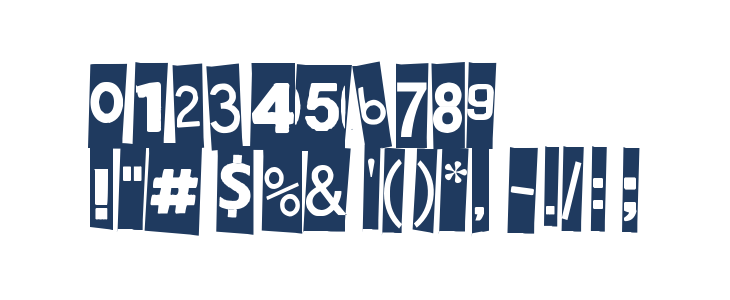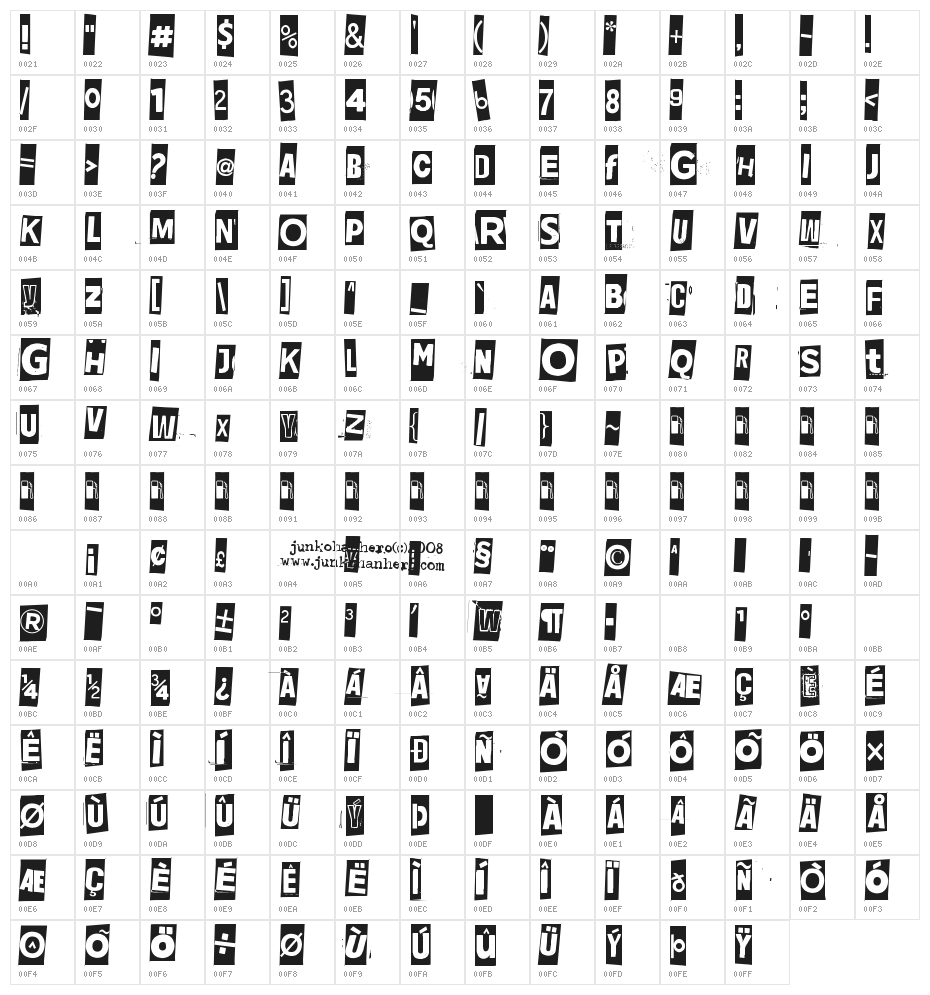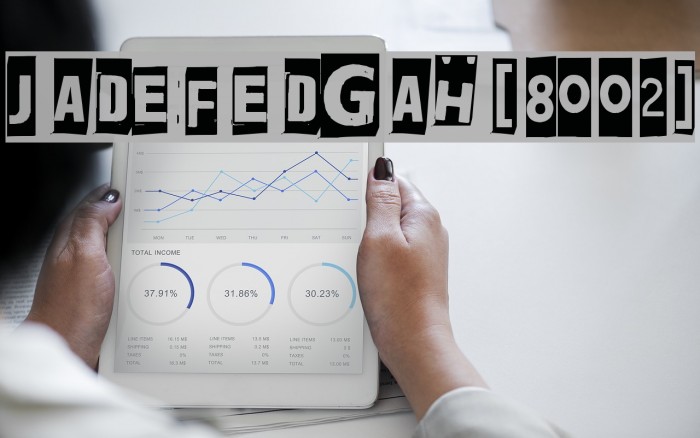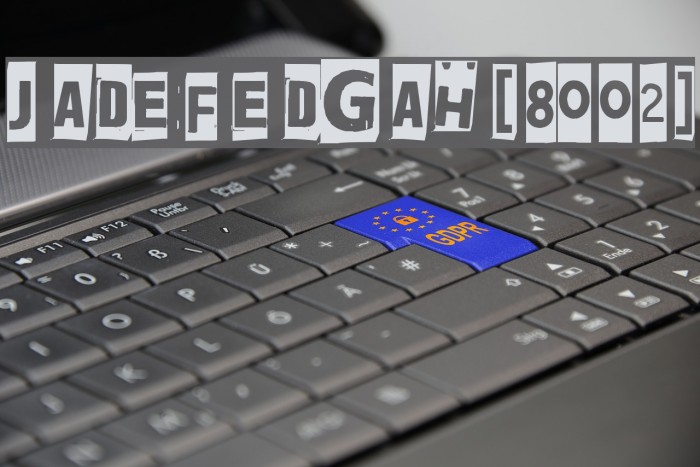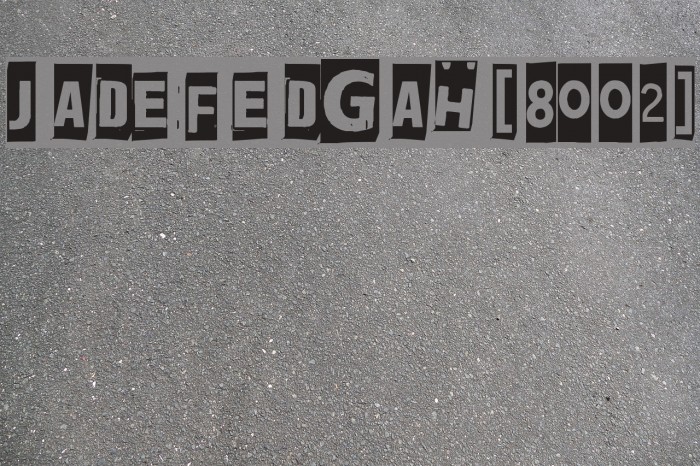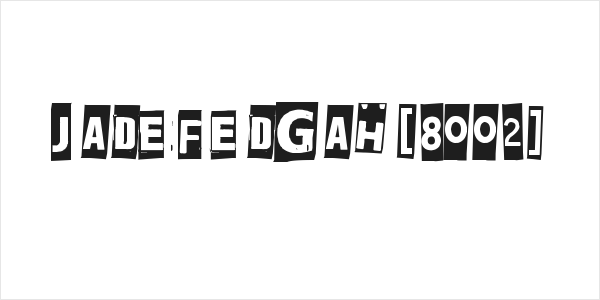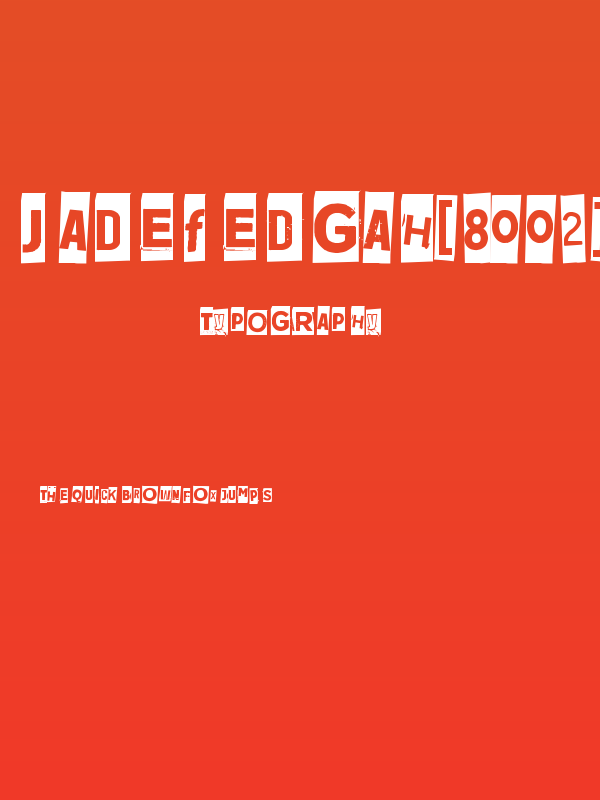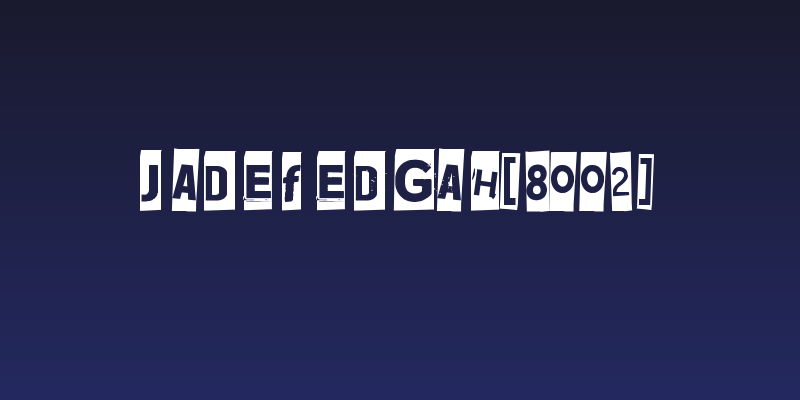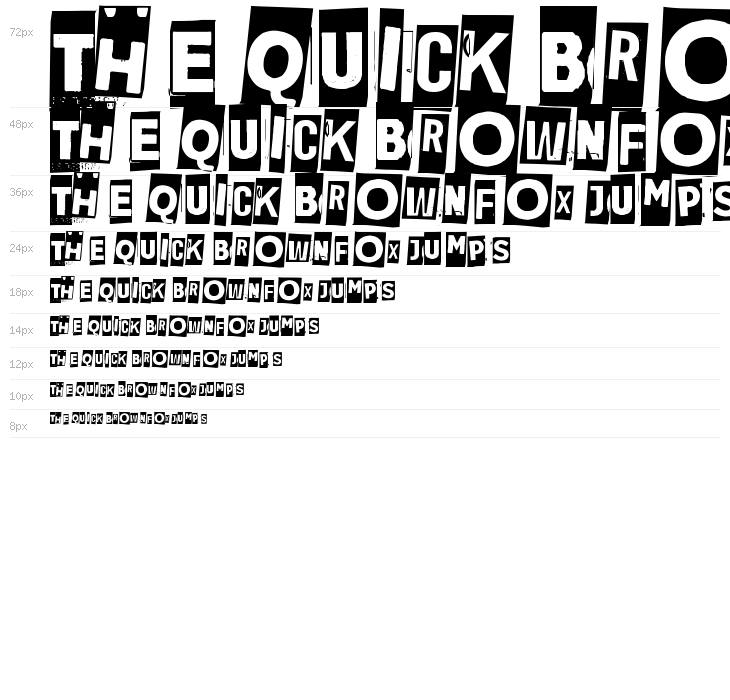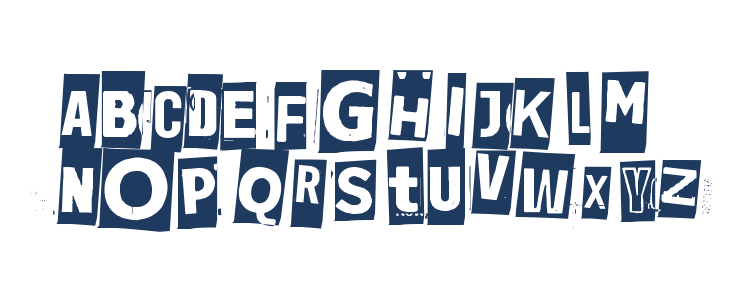
Jadefedgah[8002] Font
Jadefedgah[8002] Description
This font features a bold, distressed style reminiscent of cut-out letters from magazines or newspapers, often associated with ransom notes. Each character is uniquely designed with irregular edges and varying levels of distress, giving it a gritty, urban feel. The uppercase and lowercase letters maintain a consistent height, while numbers and special characters follow the same rugged aesthetic. The font's high contrast and uneven character shapes make it stand out, ideal for projects that require a rebellious or edgy look.
| Use Case | Headlines, Posters, Album Covers |
| Proposed Projects | Ideal for use in posters, album covers, and any design requiring an edgy, rebellious aesthetic. |